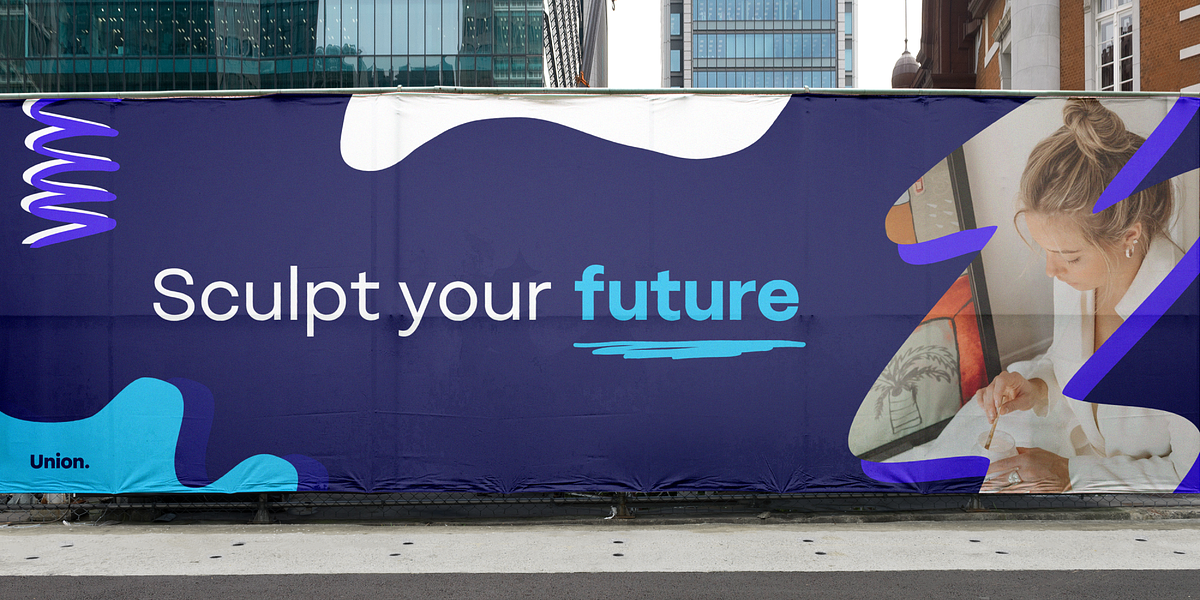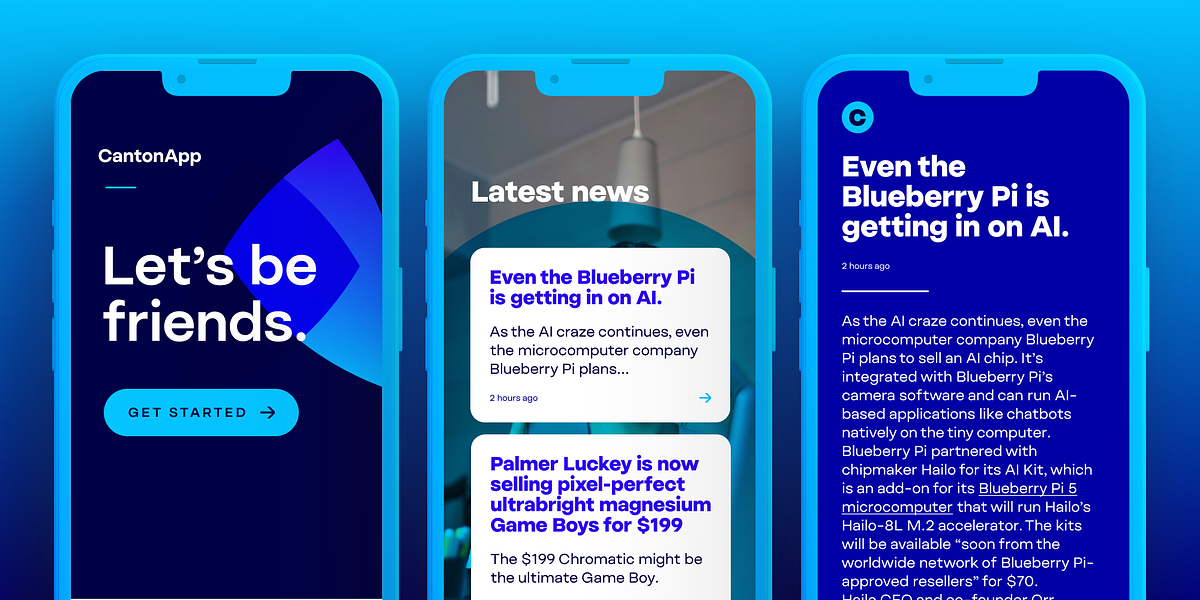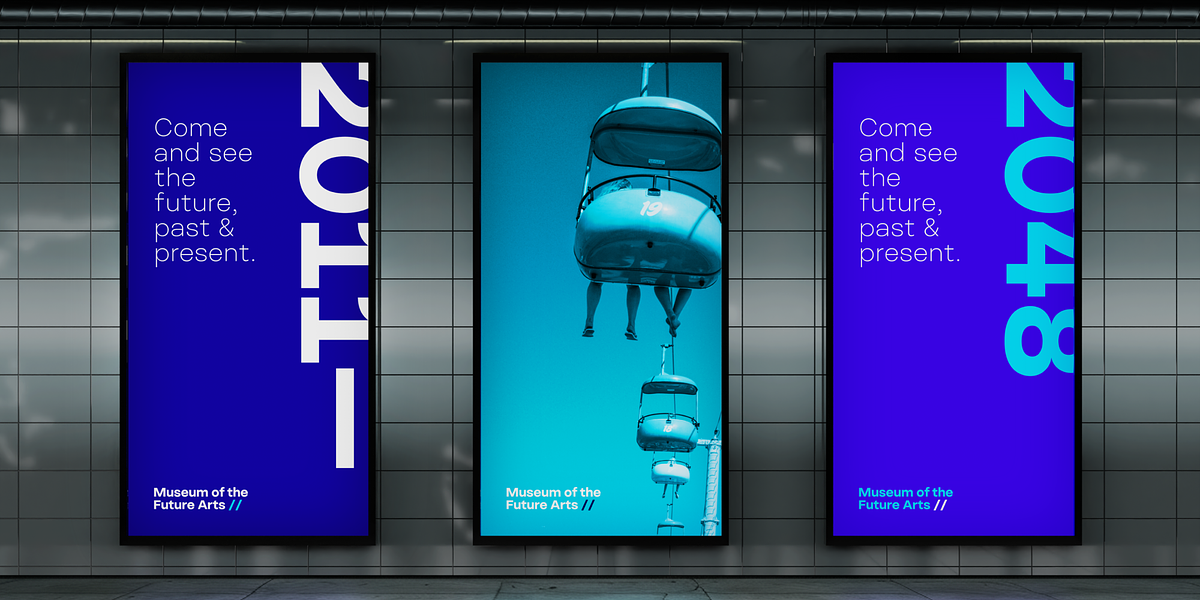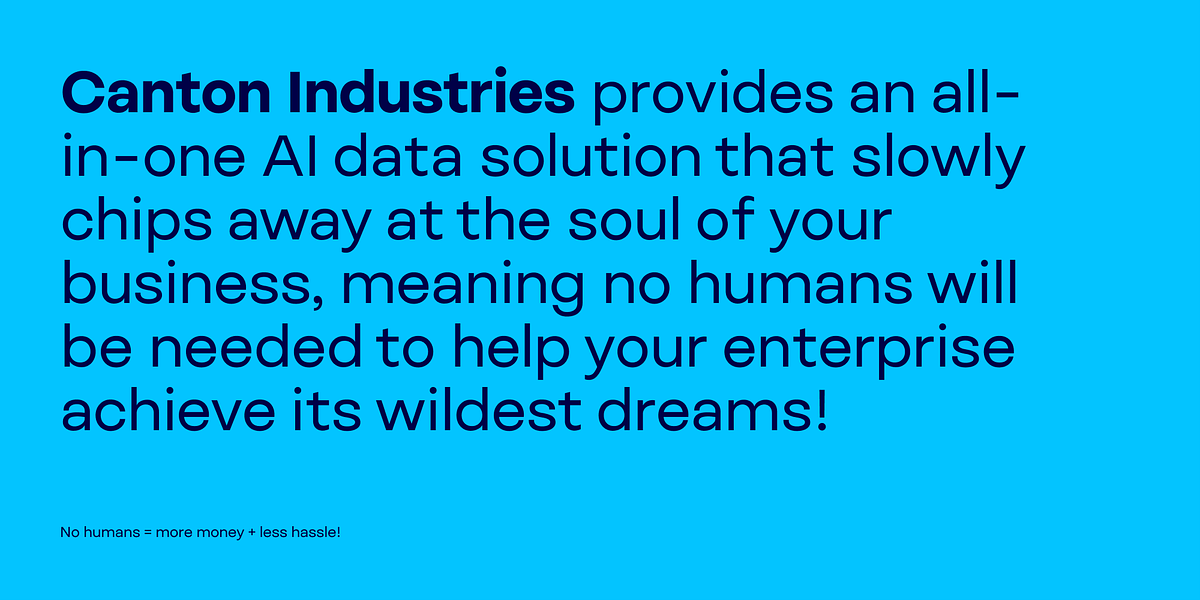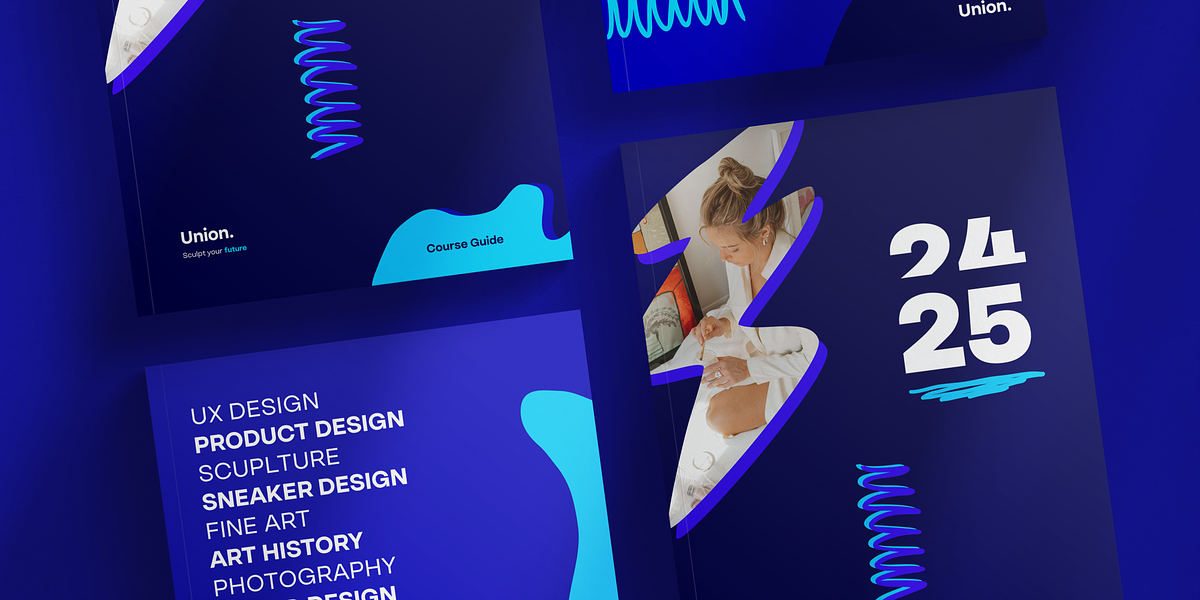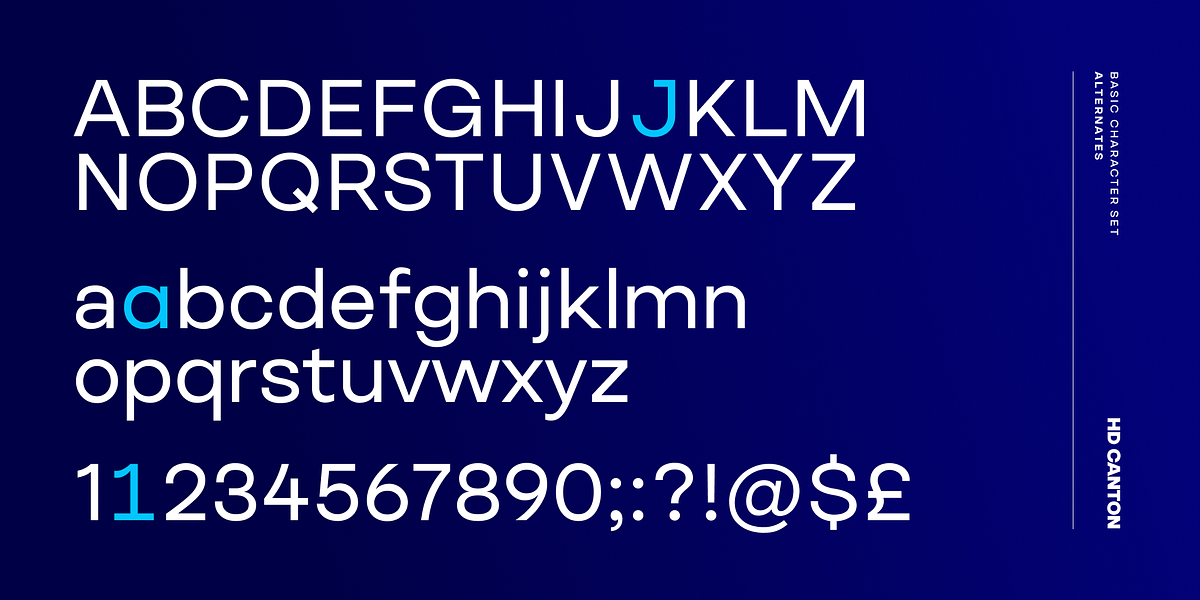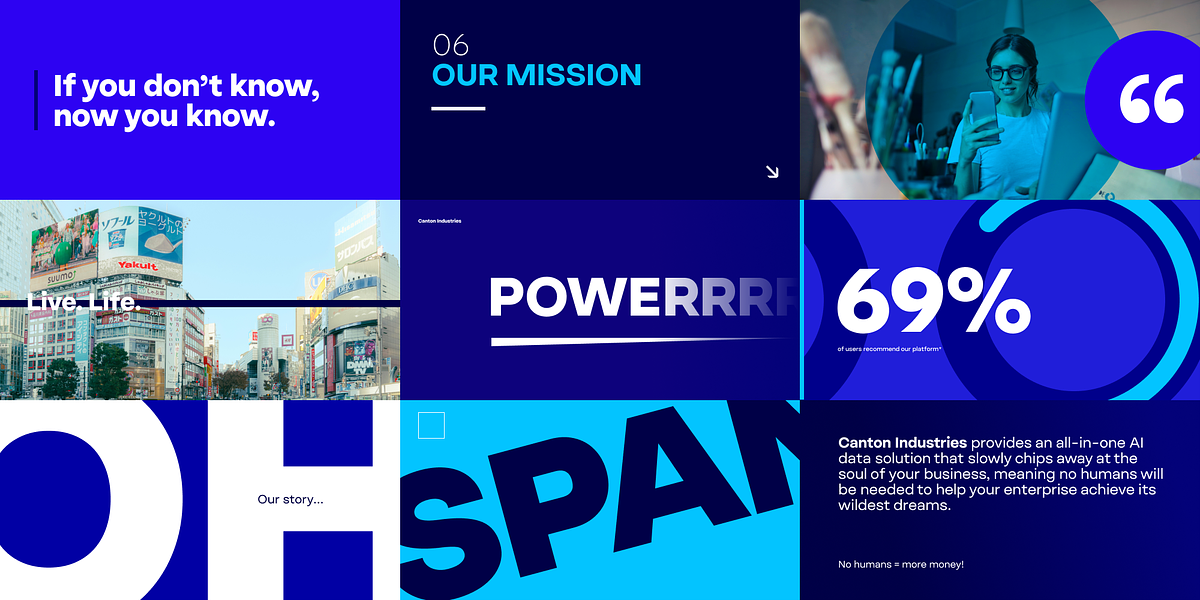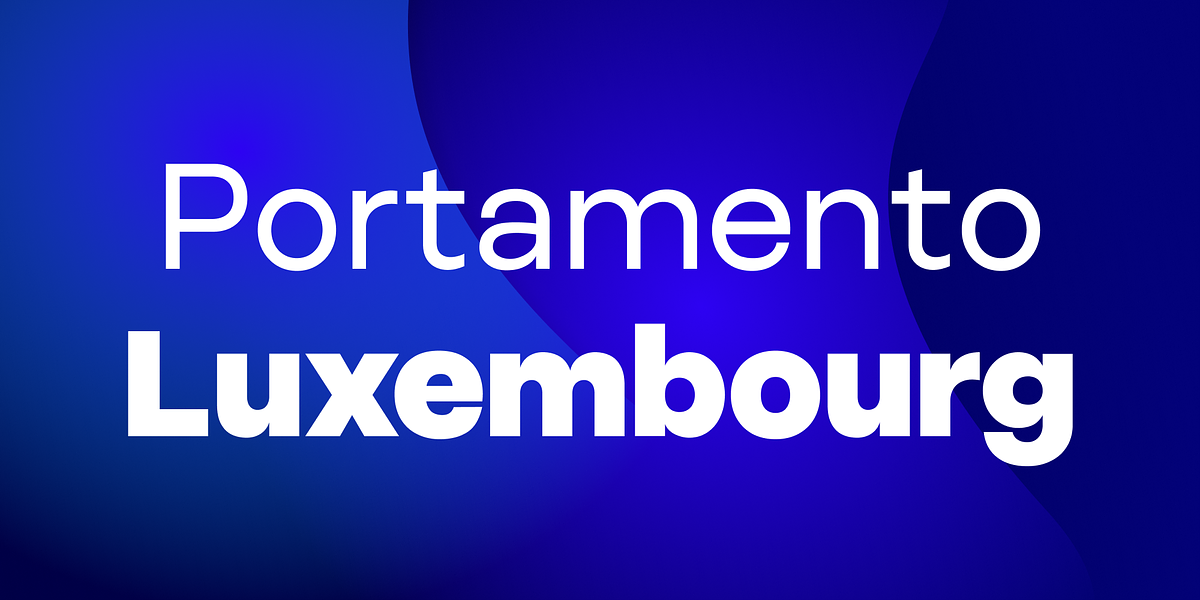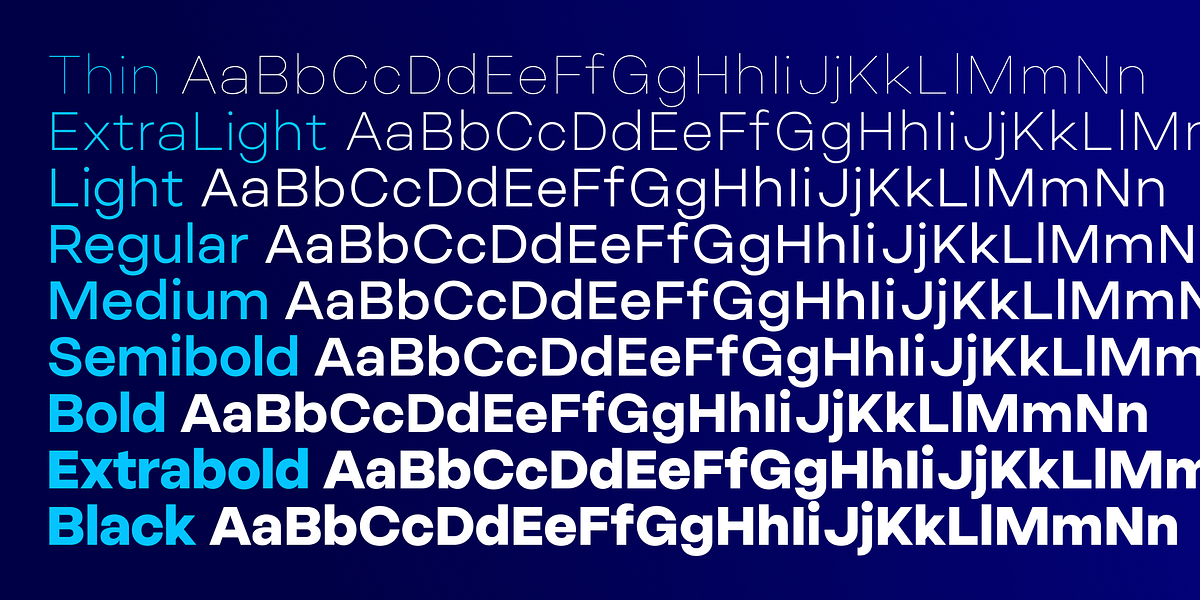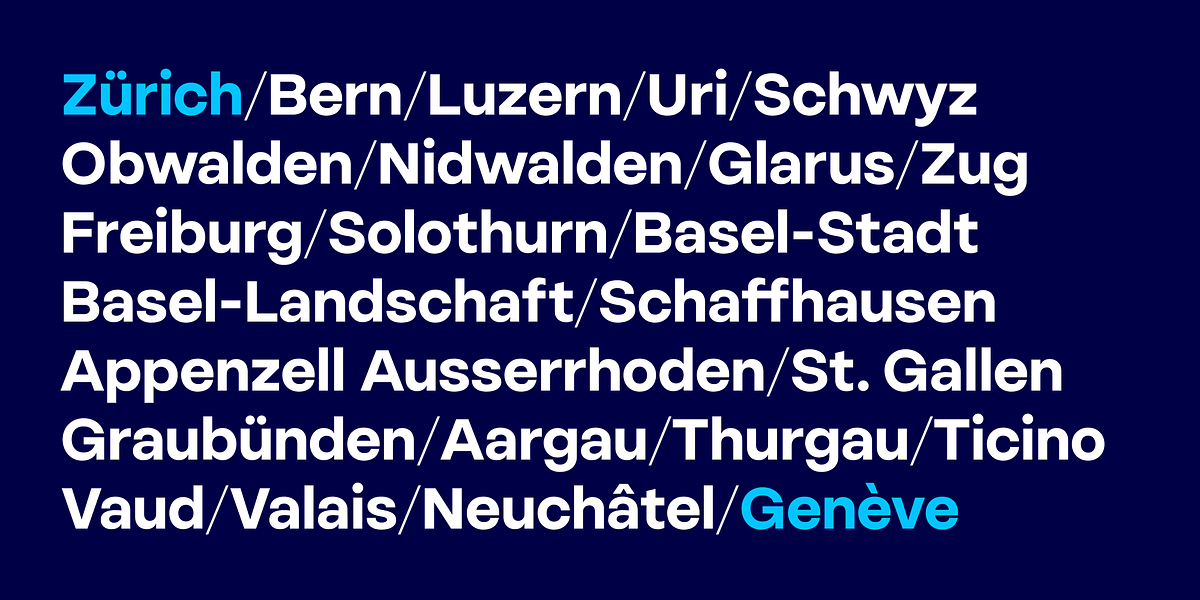
HD Canton
HD Canton is a modern geometric sans serif font designed by HyperDeluxe. It features a clean and elegant aesthetic with subtle details added to key letterforms for a unique personality. The font comes in nine weights with matching italics or as a single 2-axis variable font, making it versatile for various branding applications.